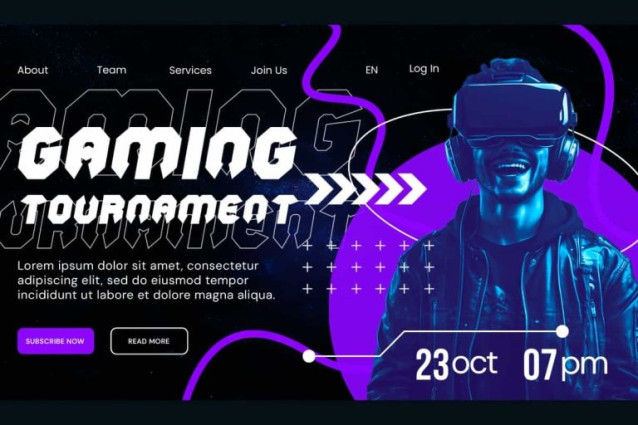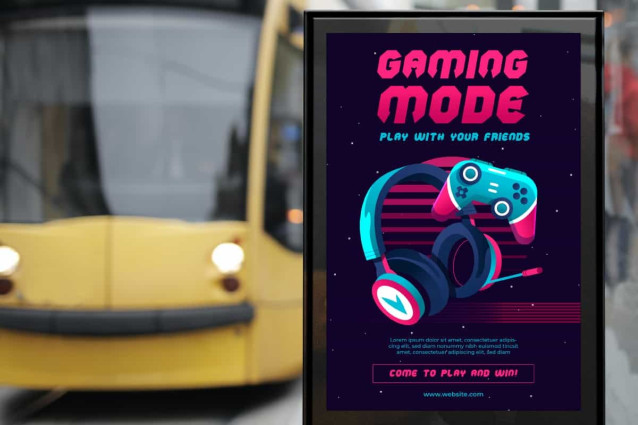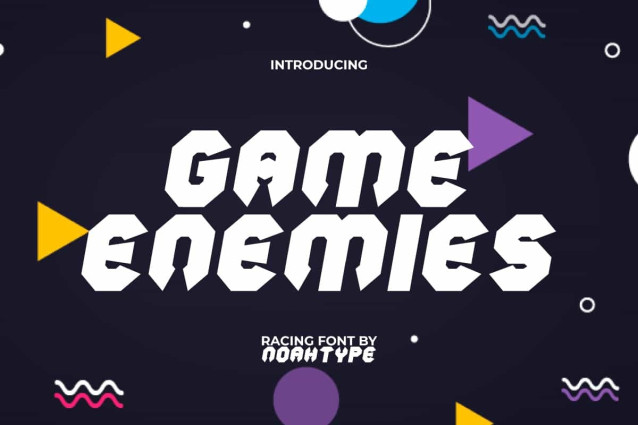
Game Enemies Font
Game Enemies Font is a playful stylish fun racing display font. This font has a unique shape with the right thickness so it’s easy to read clearly. It will be perfect for any designs, such as custom design, invitation, label, brand image, cover, menu, poster, printing, product packaging, quotes, signage, stationery, website, and many more!
Game Enemies Font includes full set of ALL CAPS for Uppercase and Lowercase Basic Characters, Numerals, Punctuation, and Symbol. This modern font will make your design amazing and also a perfect choice for many industries, such as game, movie, accessories, automotive, sports, advertising, art, café, event or festival, fashion, music, printing, publishing, etc.